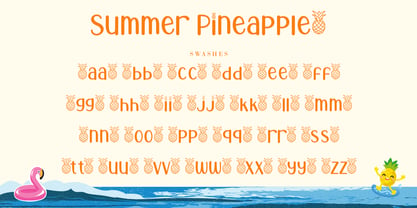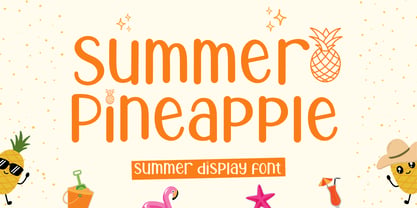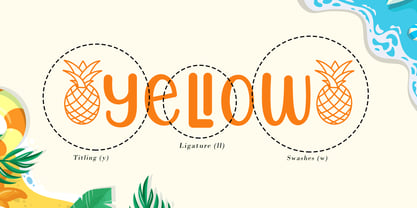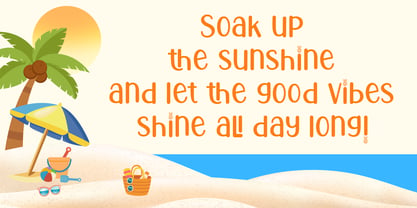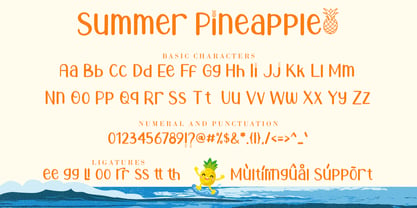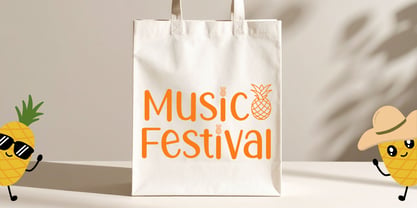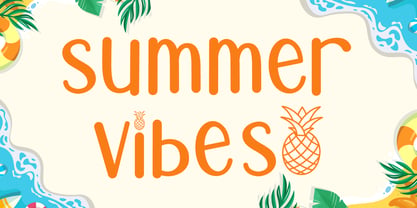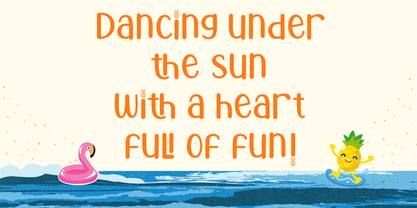
Summer Pineapple
The Summer Pineapple Font Family was designed by Agung Eko Nugroho and published by AEN Creative Studio. Summer Pineapple contains 2 styles and family package options. More about this family
Summer Pineapple is a fun bold display font with a bright tropical feel. Designed to capture the warmth and excitement of summer, this font features bold characters that make every headline look lively and attention-grabbing.
Suitable for branding, product packaging, event posters, crafting projects, and social media templates, Summer Pineapple adds a cheerful touch without feeling overwhelming. Its clean yet playful style makes it easy to pair with minimalist fonts for modern layouts.
From summer campaigns to everyday creative projects, Summer Pineapple brings a fresh and energetic mood into every design.